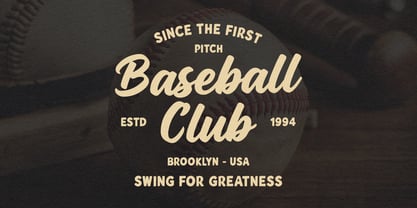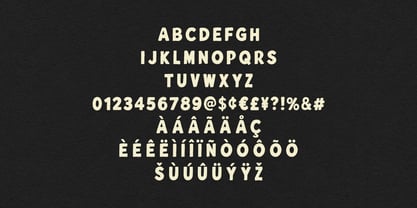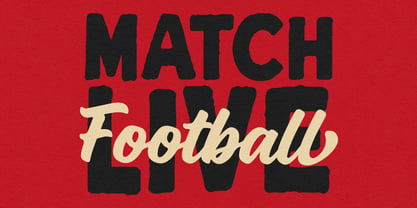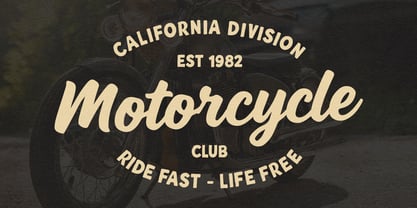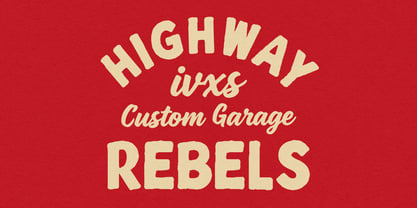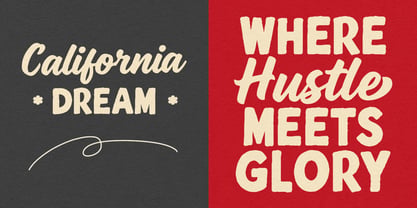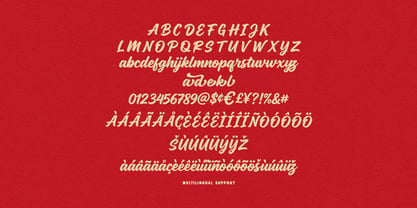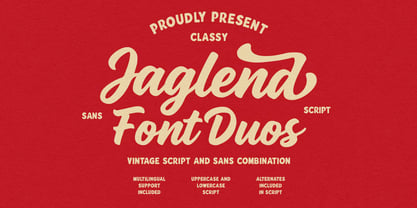
Jaglend
von Maulana Creative
Die Schriftfamilie Jaglend wurde von Gilang Maulana entworfen und von Maulana Creative veröffentlicht. Jaglend enthält 2 Stile und Familienpaketoptionen. Mehr über diese Familie
Jaglend is a classic typographic pair combining a bold, flowing script with a rugged, hand-drawn sans-serif font. This collection features uppercase and lowercase script letters, alternate characters, and extensive multilingual support. Perfect for creating timeless logotypes, badges, sports team graphics, and packaging design, Jaglend brings an authentic, old-school aesthetic. The thick, smooth curves of the script blend seamlessly with the textured, solid presence of the sans font, giving designers a versatile toolkit for merchandise, dynamic posters, retro labeling, and bold branding projects.